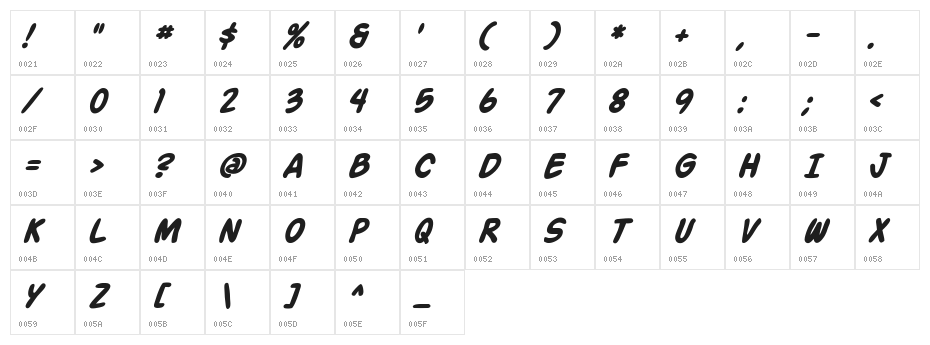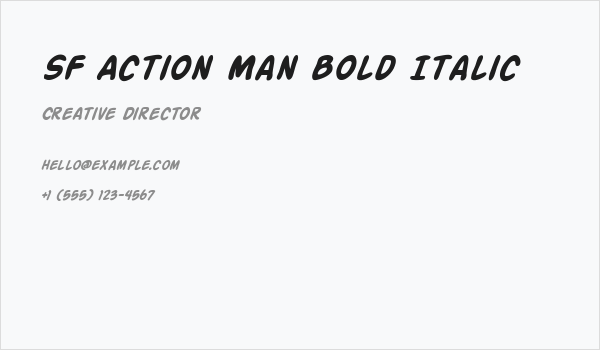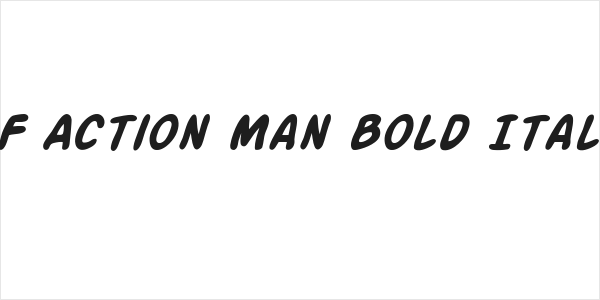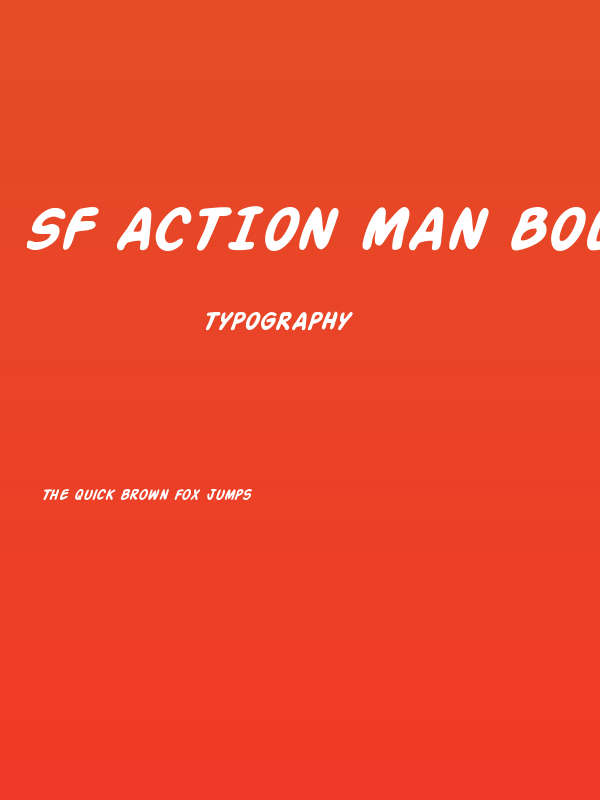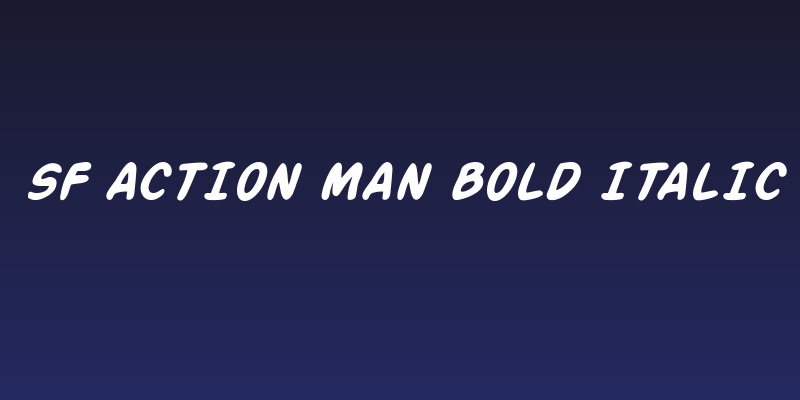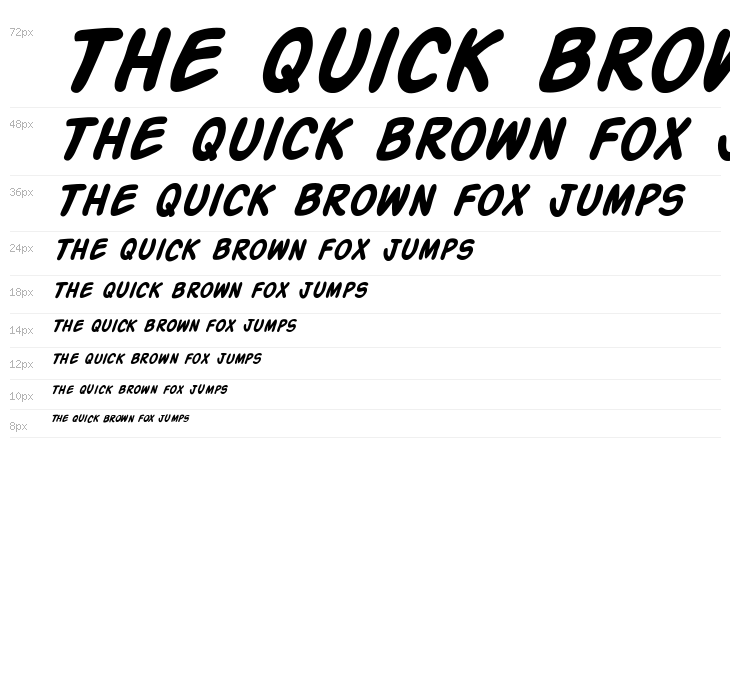
SF Action Man Bold Italic Font
SF Action Man Bold Italic Description
This font exhibits a bold and dynamic style with a strong italic slant, giving it a sense of motion and energy. The characters are rounded and smooth, creating a friendly and approachable appearance. The bold weight ensures high visibility, making it suitable for attention-grabbing headlines. The italic angle adds a playful and informal touch, while the consistent stroke width maintains readability. This font's design is both modern and versatile, capable of conveying a sense of enthusiasm and creativity.
| Proposed Projects | Ideal for sports branding, dynamic posters, playful advertisements, and energetic social media graphics. |